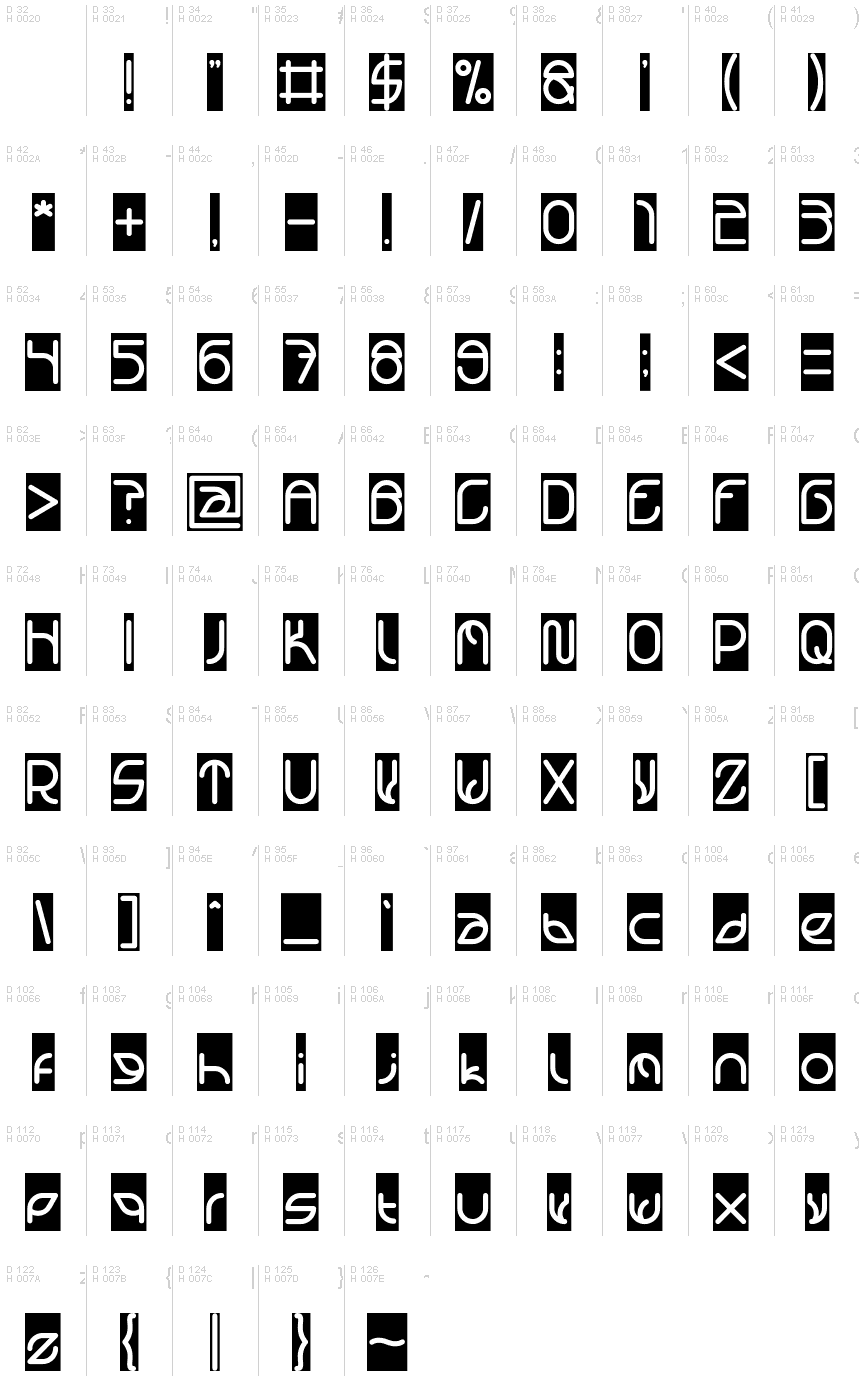
VICTORY-Inverse
VICTORY Inverse, a display font designed by weknow, brings a futuristic twist to your next project. Its semi-light weight creates a sleek and modern look, perfect for branding and advertising. Use it for product packaging, social media graphics, or even in your website design to catch the eye of your audience. VICTORY Inverse's unique style is also well-suited for sci-fi movie titles or video game logos. With its bold and distinct lettering, this font is sure to make an impact in any project you use it in.